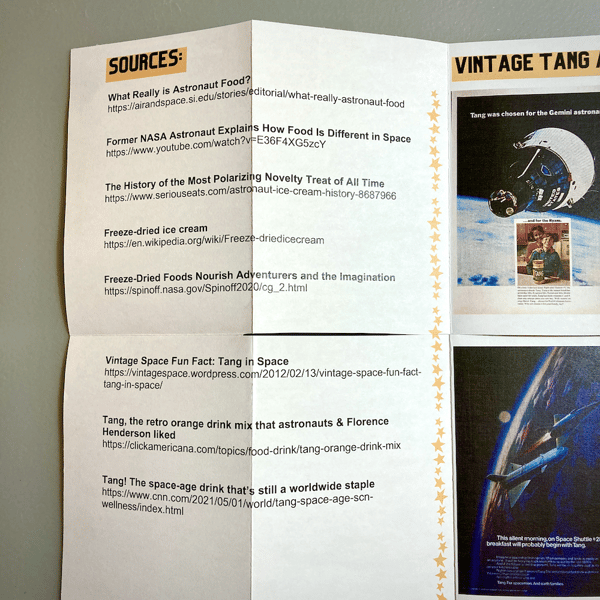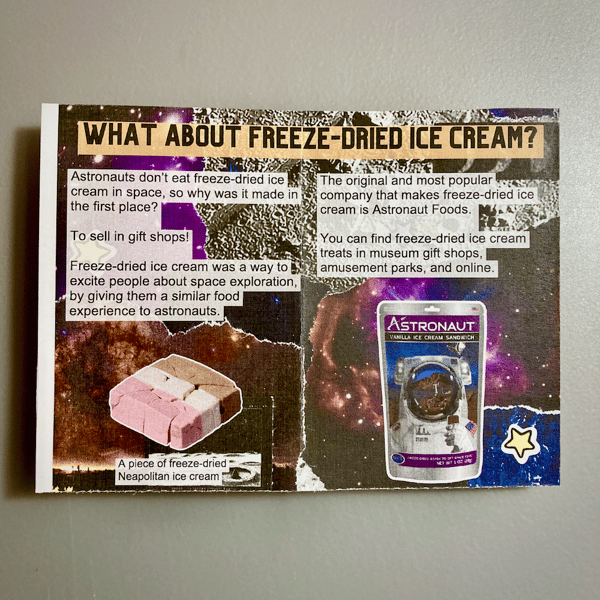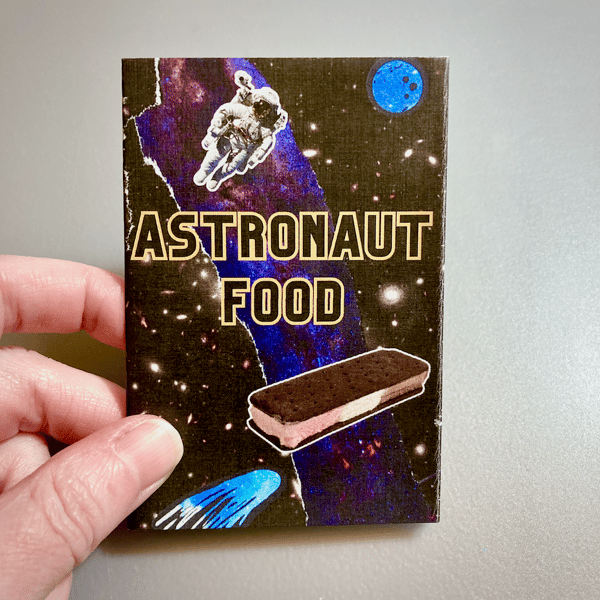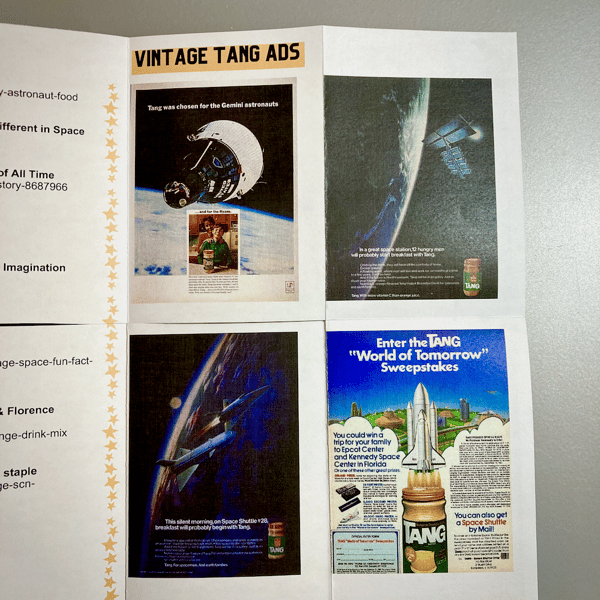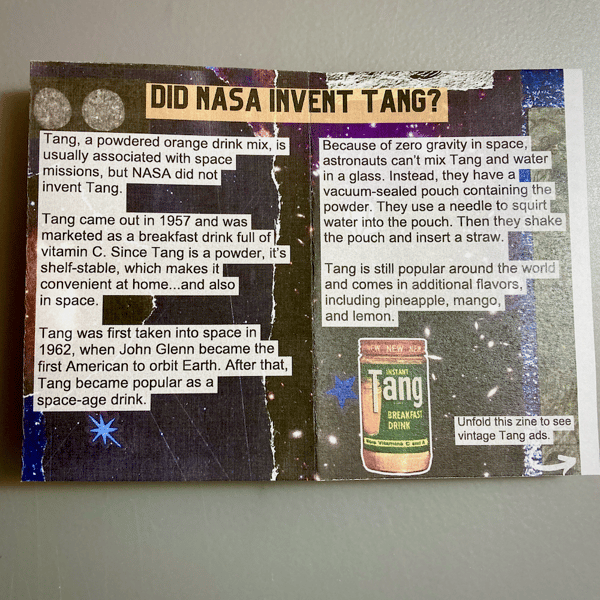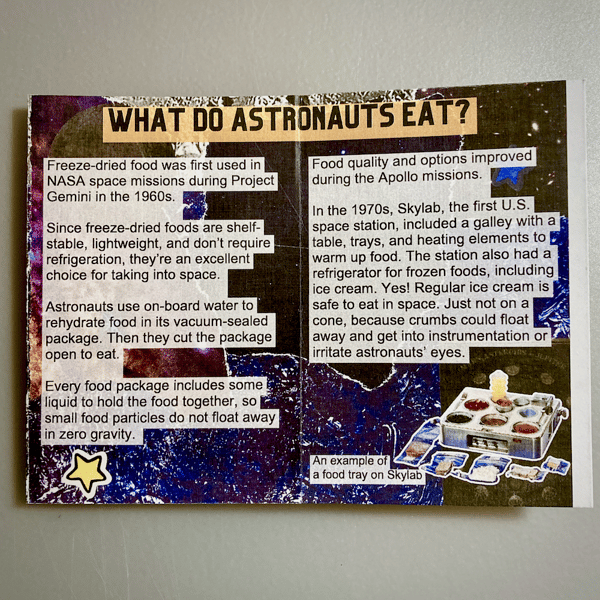
Astronaut Food
“Astronaut Food” is a mini zine about freeze-dried food that astronauts eat in outer space.
The zine includes history about developing food for NASA missions. The back side of the zine (when unfolded) shows vintage Tang ads and a list of sources.
If it’s giving Bill Nye episode, that’s my intent. 😉
I made a collage using space imagery for the background of the zine. All text is typed.
Astronaut food
What do astronauts eat?
Freeze-dried food was first used in NASA space missions during Project Gemini in the 1960s.
Since freeze-dried foods are shelf- stable, lightweight, and don’t require refrigeration, they’re an excellent choice for taking into space.
Astronauts use on-board water to rehydrate food in its vacuum-sealed package. Then they cut the package open to eat.
Every food package includes some liquid to hold the food together, so small food particles do not float away in zero gravity.
Food quality and options improved during the Apollo missions.
In the 1970s, Skylab, the first U.S. space station, included a galley with a table, trays, and heating elements to warm up food. The station also had a refrigerator for frozen foods, including ice cream. Yes! Regular ice cream is safe to eat in space. Just not on a cone, because crumbs could float away and get into instrumentation or irritate astronauts’ eyes.
An example of a food tray on Skylab
What about freeze-dried ice cream?
Astronauts don’t eat freeze-dried ice cream in space, so why was it made in the first place?
To sell in gift shops!
Freeze-dried ice cream was a way to excite people about space exploration, by giving them a similar food experience to astronauts.
The original and most popular company that makes freeze-dried ice cream is Astronaut Foods.
You can find freeze-dried ice cream treats in museum gift shops, amusement parks, and online.
A piece of freeze-dried Neapolitan ice cream
Did NASA invent Tang?
Tang, a powdered orange drink mix, is usually associated with space missions, but NASA did not invent Tang.
Tang came out in 1957 and was marketed as a breakfast drink full of vitamin C. Since Tang is a powder, it’s shelf-stable, which makes it convenient at home...and also
in space.
Tang was first taken into space in 1962, when John Glenn became the first American to orbit Earth. After that, Tang became popular as a
space-age drink.
Because of zero gravity in space, astronauts can’t mix Tang and water in a glass. Instead, they have a vacuum-sealed pouch containing the powder. They use a needle to squirt water into the pouch. Then they shake the pouch and insert a straw.
Tang is still popular around the world and comes in additional flavors, including pineapple, mango,
and lemon.